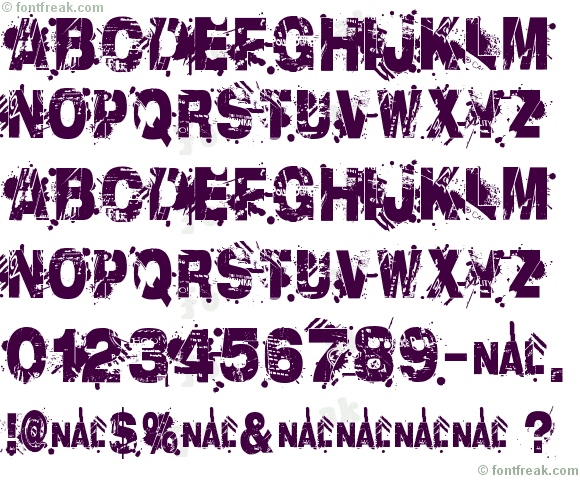
Liberty City Ransom
Introducing the Liberty City Ransom font by Andrew McCluskey, a striking display typeface that embodies a bold, urban aesthetic. This font captures the essence of a gritty city vibe, making it perfect for projects that require a touch of rebellion and attitude. As a freeware font, it allows designers and creatives the freedom to explore its unique character without any licensing fees.
Visually, Liberty City Ransom features a rugged and distressed appearance, characterized by uneven stroke weights and an eye-catching contrast that creates a sense of depth. The spacing between letters is intentionally varied, adding to its raw, edgy look. This typeface is adorned with decorative elements that mimic the urban environment, making it stand out in any design context.
Best suited for use cases such as movie posters, streetwear branding, music album covers, and urban-themed event flyers, Liberty City Ransom brings a dynamic flair to any creative project. Its bold personality makes it ideal for capturing attention in high-energy environments, appealing to audiences looking for something fresh and impactful.
Targeted primarily at graphic designers, small business owners, and content creators, this font serves as an excellent choice for those who wish to convey a sense of individuality and modernity in their work. By incorporating the Liberty City Ransom font free download into your design toolbox, you can elevate your projects with its distinct style.
In a crowded market of typefaces, Liberty City Ransom stands out for its unique blend of urban grit and artistic flair. This font does not just communicate words; it tells a story and evokes a feeling, making it a powerful tool for anyone looking to make a memorable impact in their designs.